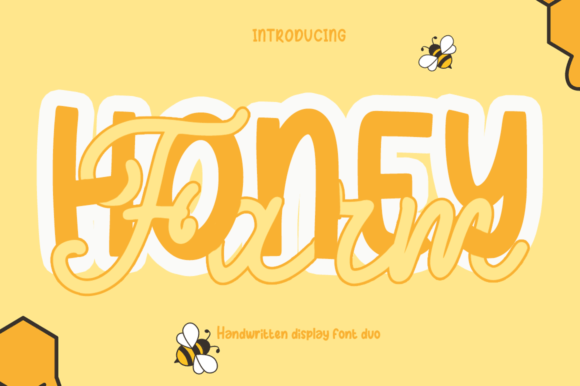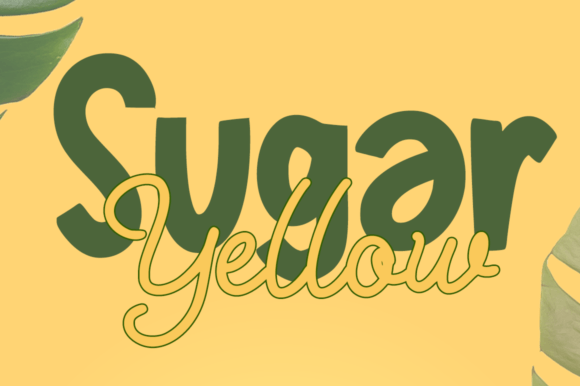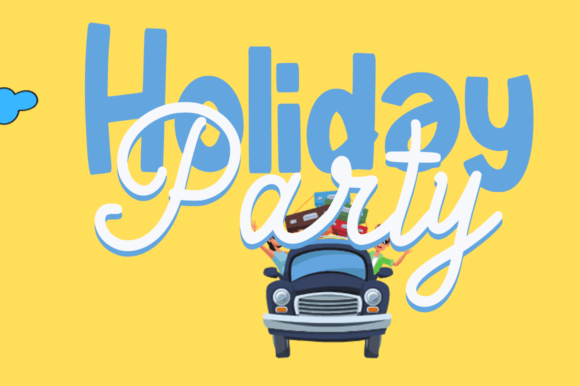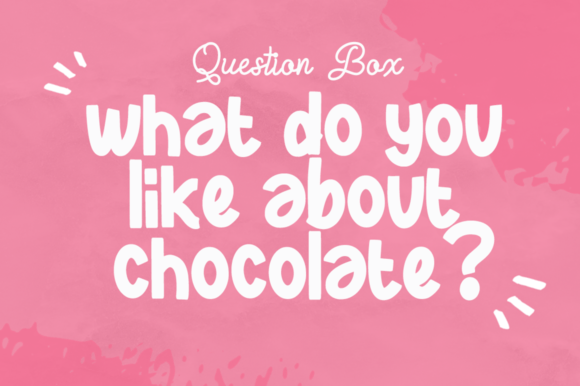
Honey Farm Font
About the Honey Farm Font
Elevate your designs with Honey Farm Font, a font that combines sophistication with readability. Introducing “Honey Farm font duo,” an alluring pair of Handwriting fonts meticulously crafted for diverse applications. It serves as an ideal choice for endorsing various products, designing striking logos, and packaging labels, expressing unique brand identities, and creating captivating headlines or signs. Elevate the classic charm of your wedding invites, diversify your signatures, or breathe life into splendid book covers with this design. Add a sprinkle of sophistication to your posters, let your quotes speak volumes, and engage audiences with much more. Dive into the versatile world of Honey Farm and let your creativity shine.
Honey Farm Font Usage Examples
Honey Farm Font Example